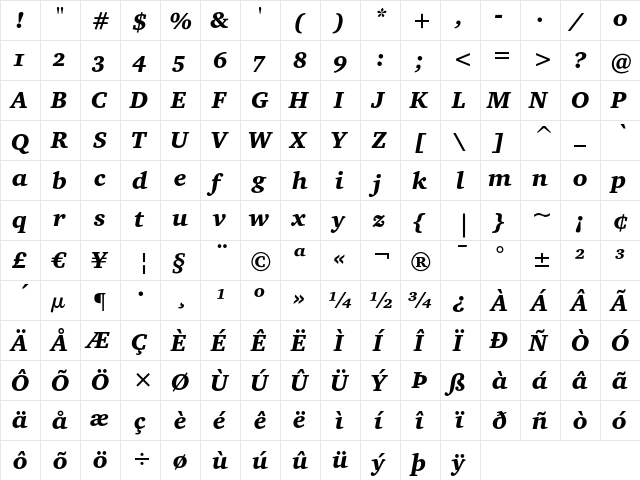
Bitstream Charter Black Italic OSF
Design Context for Bitstream Charter Typeface
Bitstream Charter takes a measured approach to typography — its balanced proportions and neutral character make it a reliable workhorse for both digital and print work. The dynamic lean of this cut emphasises speed and emphasis in any layout.
Pro Tip: Try Bitstream Charter for annotation and caption copy alongside an upright companion — the contrast in angle creates a dynamic but ordered typographic system.